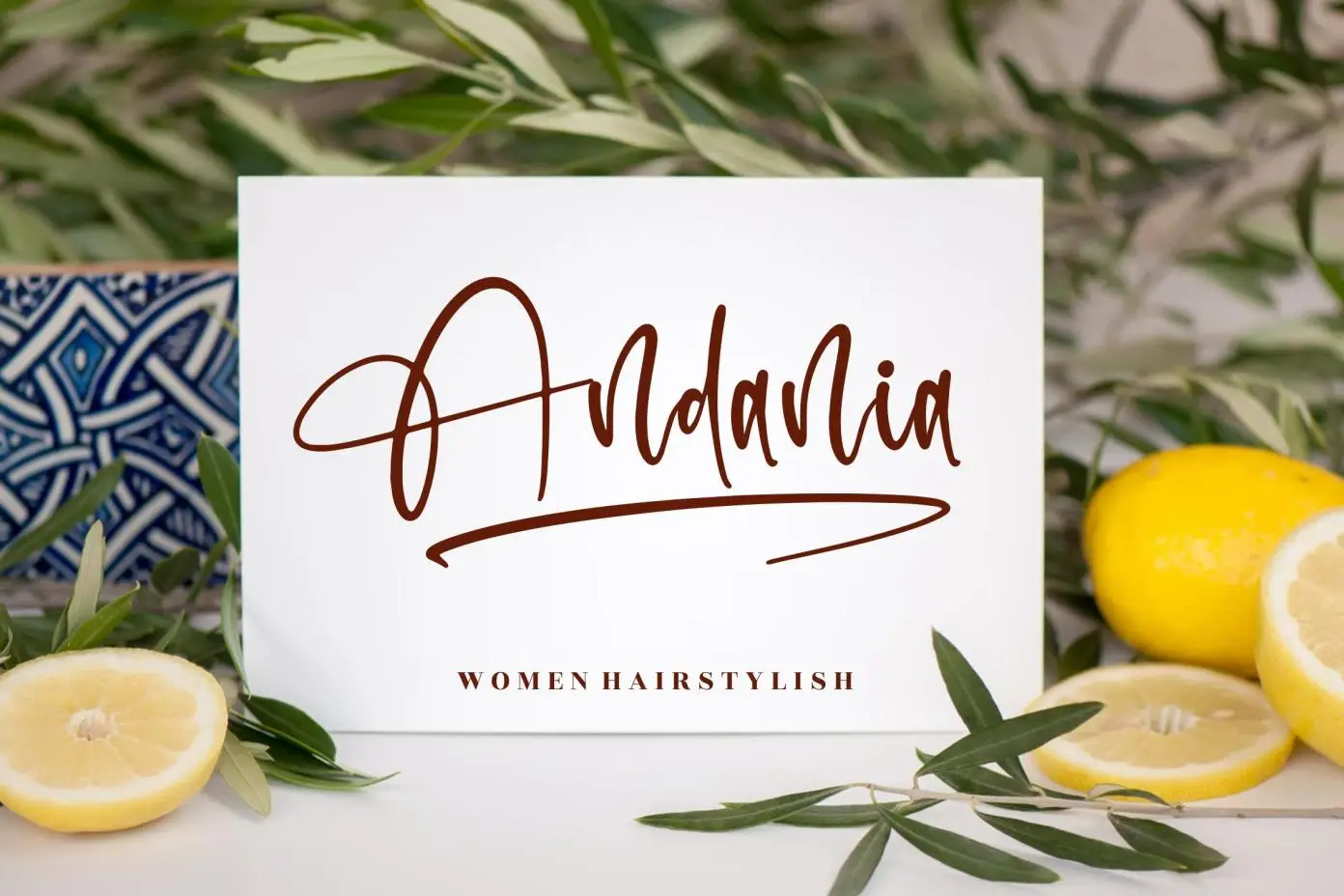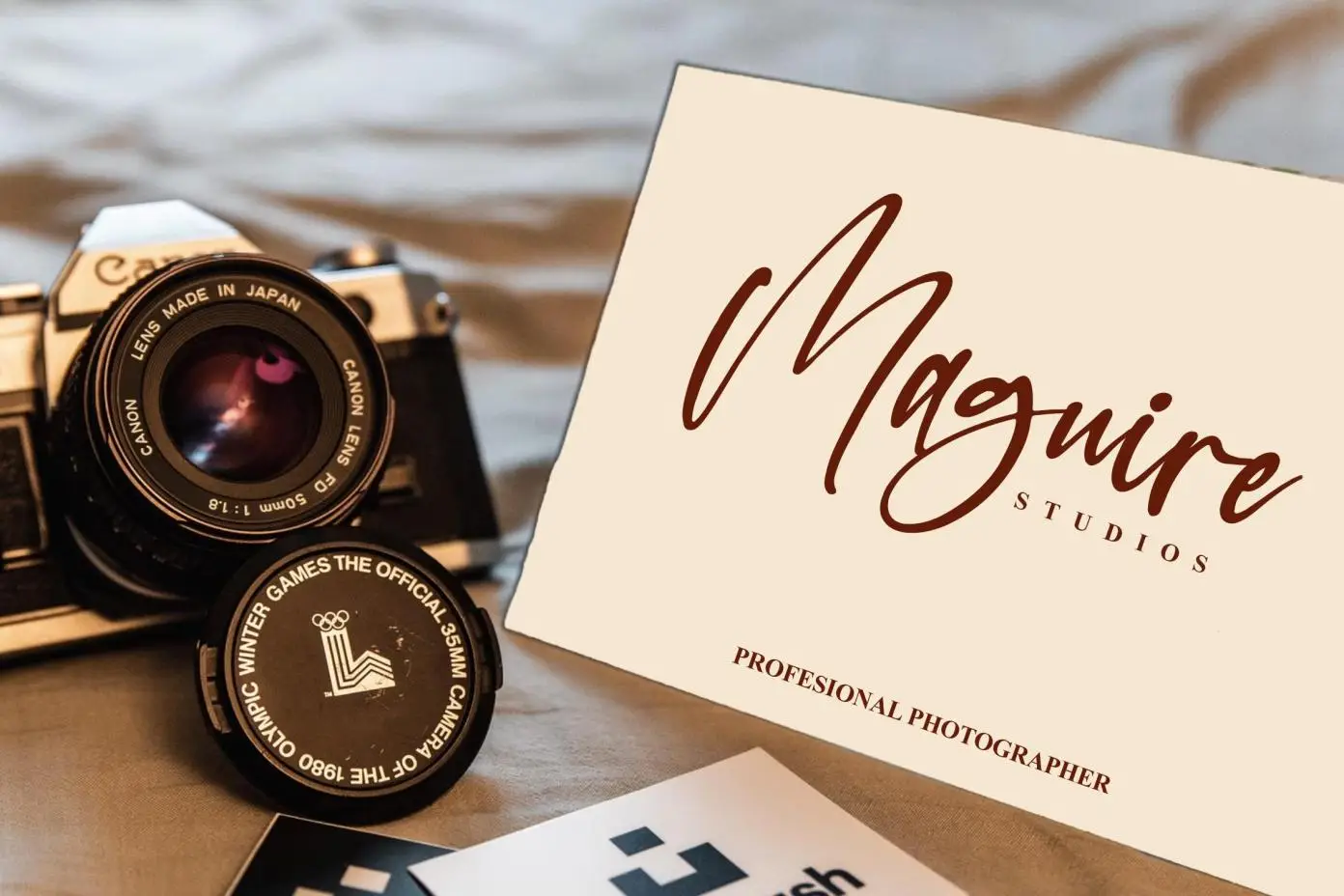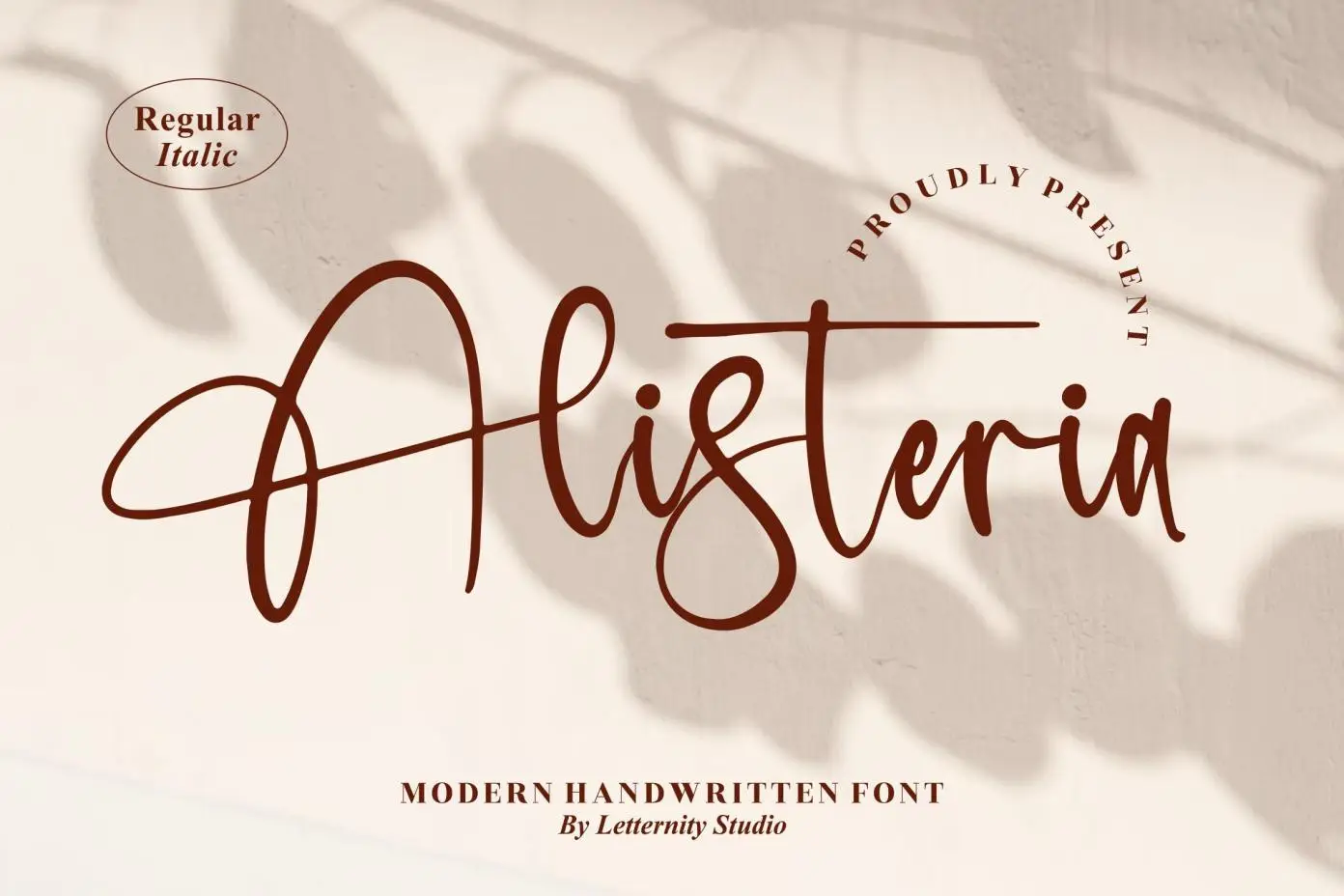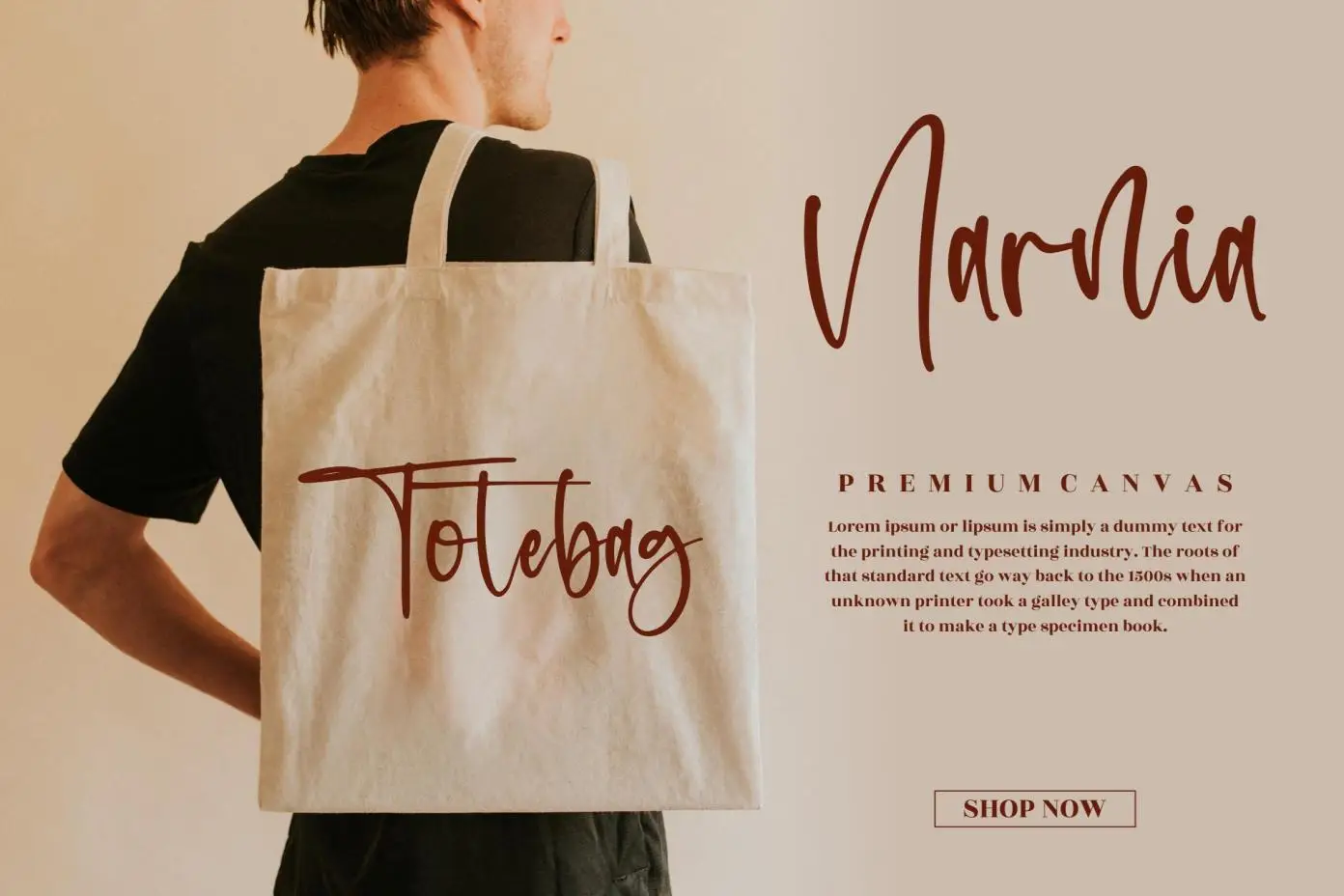
Alisteria – Modern Handwritten Font
Alisteria is a modern handwritten font that beautifully captures the essence of casual elegance. With its fluid strokes and unique character, this font is perfect for adding a personal touch to your projects.
• Stylish handwritten design
• Numbers and punctuation included
This font works wonderfully for branding, logos, invitations, and any print or digital media where a handwritten style is desired.